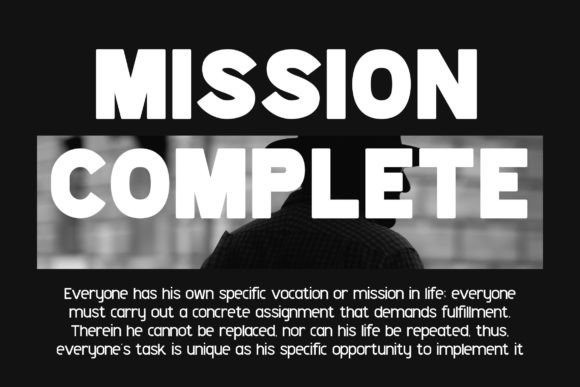
Shackle Font
Shackle Sans Serif Font is a modern and attractive sans-serif font, designed to capture the essence of simplicity and elegance. With its clean and bold design, this font exudes professionalism and style, making it perfect for branding, web design, and other modern projects. Its versatile nature and timeless appeal make it a go-to choice for any designer looking to create a modern and attractive look.